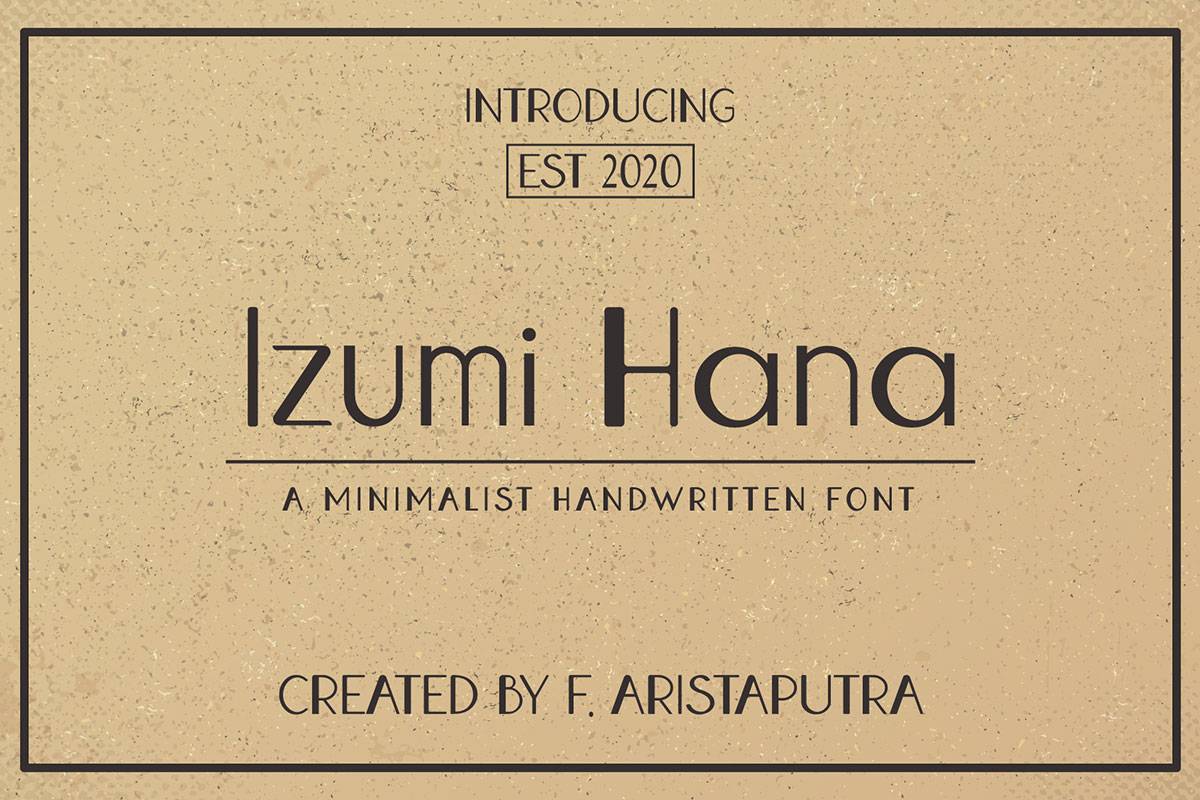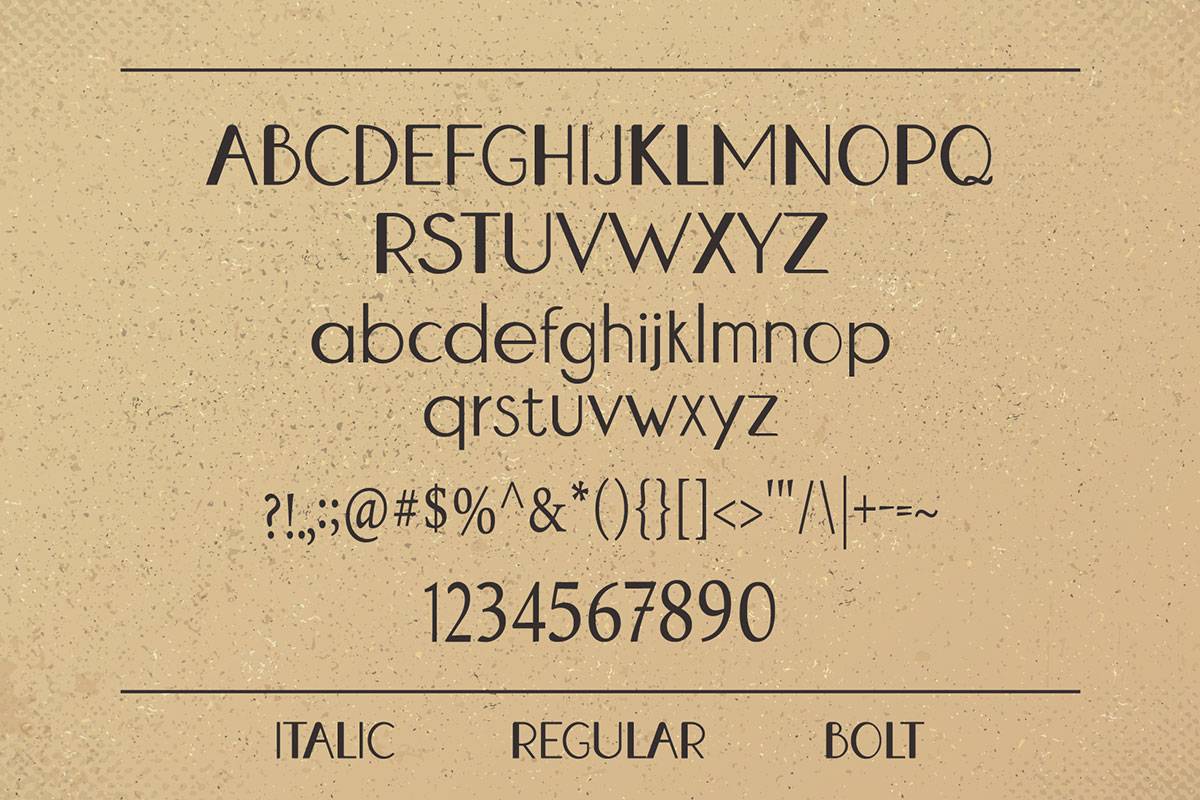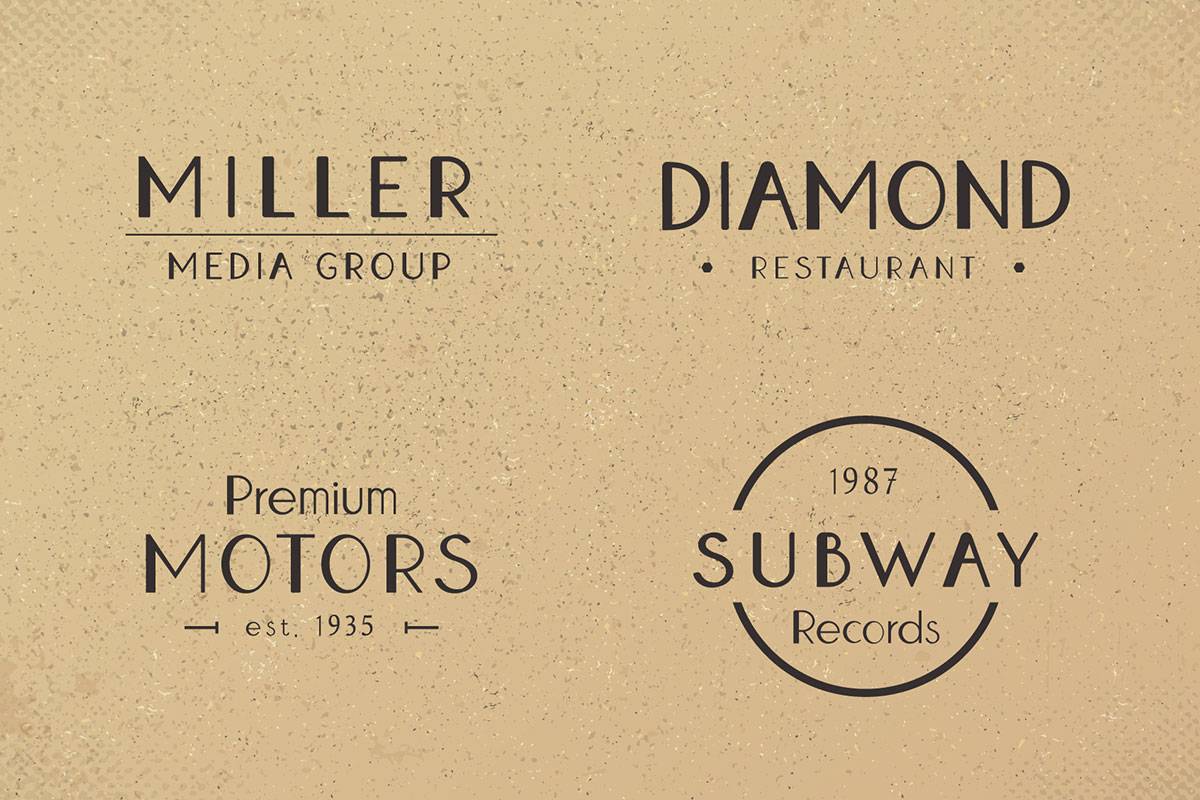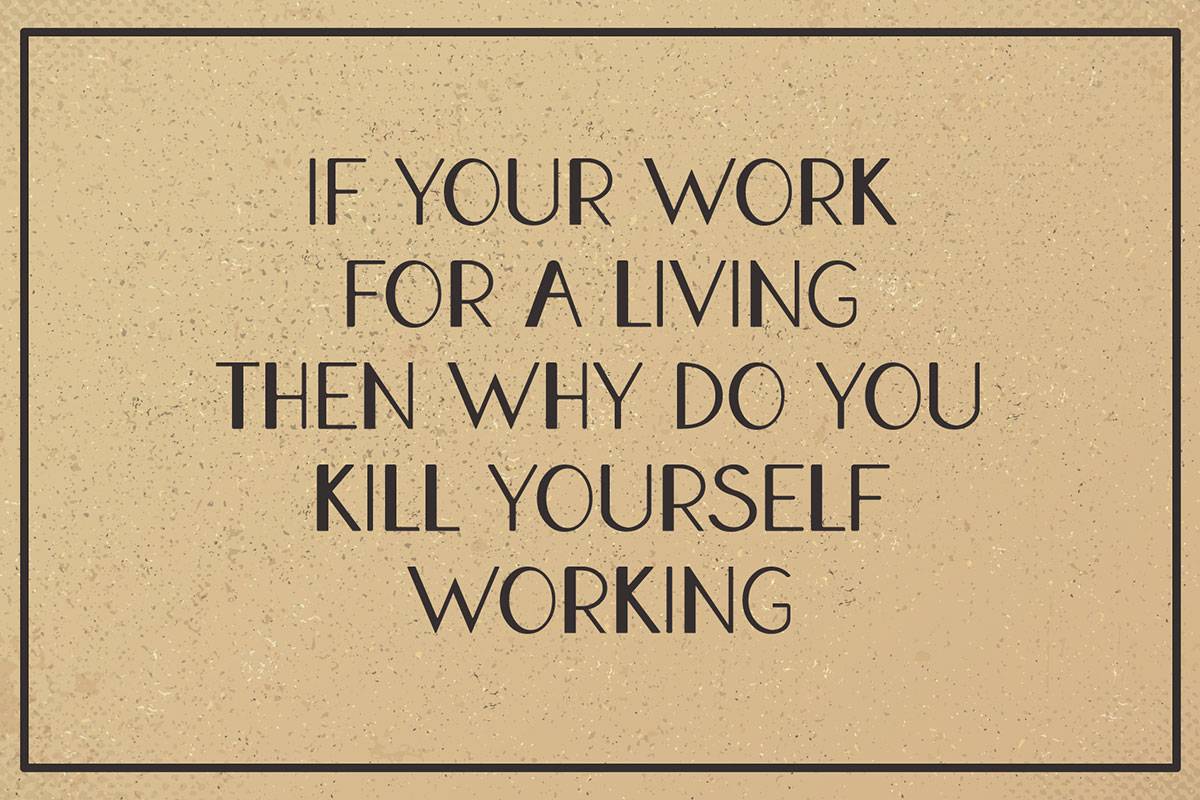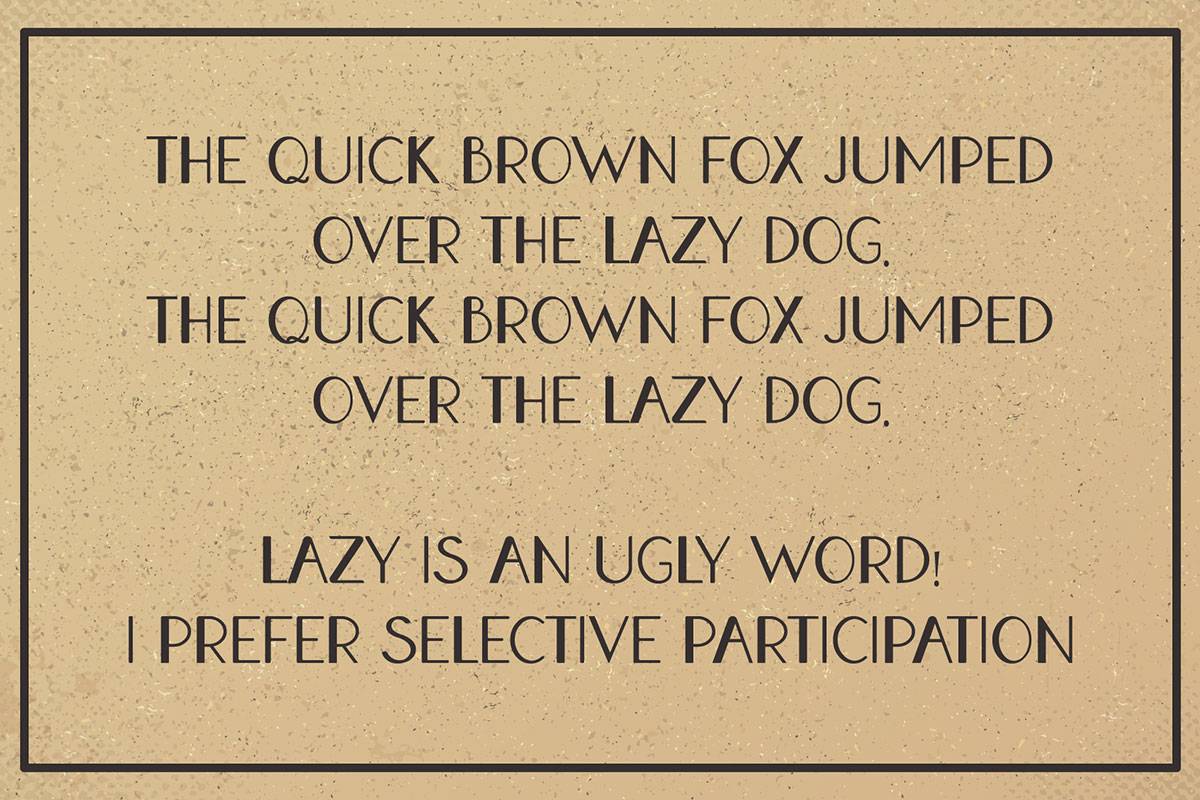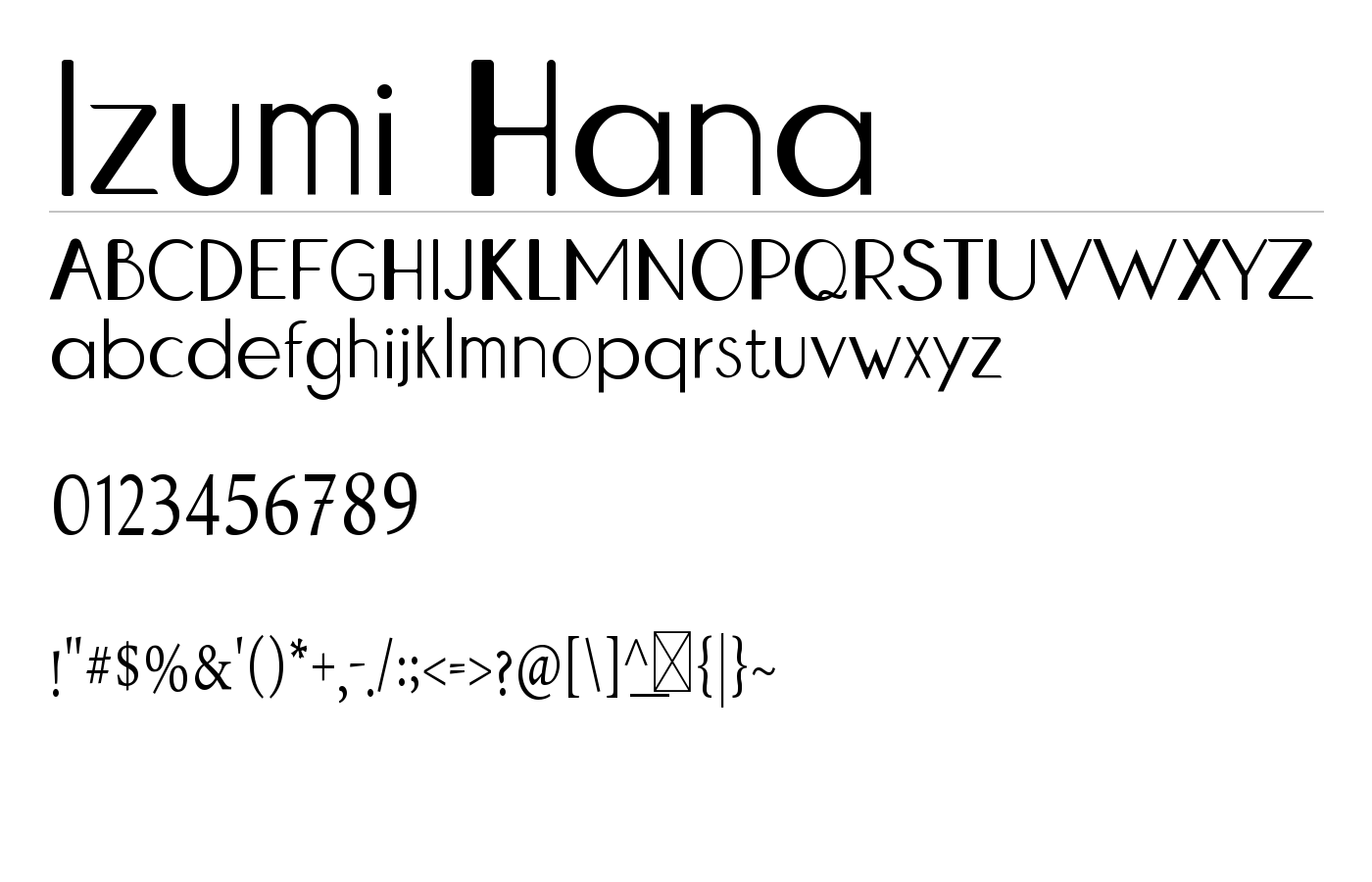
Izumi Hana is a sleek, modern sans serif font characterized by its slender strokes, high contrast, and elegant, slightly condensed letterforms that give it a refined and sophisticated look. Its unique shapes, such as the single-story 'a' and distinctive 'Q' tail, coupled with a clean, airy spacing, make it ideal for stylish branding, editorial layouts, and contemporary design projects that aim for a minimalist yet graceful feel. This font works particularly well in headlines and logos where a touch of chic modernity is desired.
Izumi Hana Font
About Izumi Hana Font
| Font family | Izumi Hana Font |
| Release date | 2020-06-14 |
| Designer | Frederik Aristaputra |